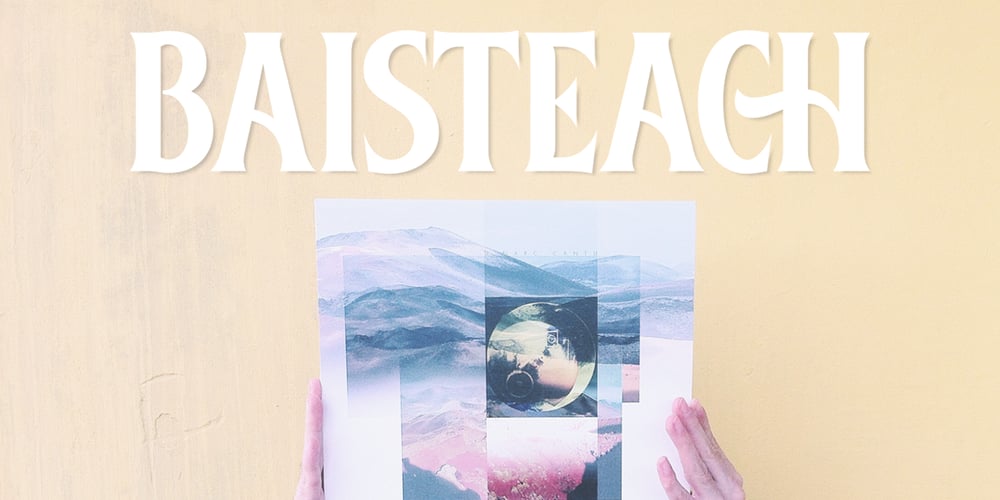
Baisteach Font Family was designed by Fahrizal Tawakkal and published by Fontdation. Baisteach contains 2 styles and family package options. Introducing Baisteach, our latest all-caps vintage serif. Inspired from early 1900’s typography that often used in sign paintings, packaging labels, and advertisements. This typeface is made of sharp serifs, clean edges and strong form, give you a simple yet impactful feels. Suits best for headline, logo/logotype, and many more. If you’re a fan of classic typography, make sure you add this font to your design toolbox. Last but not least, don’t forget to activate its OpenType Feature to get the wider selection of letter combinations.